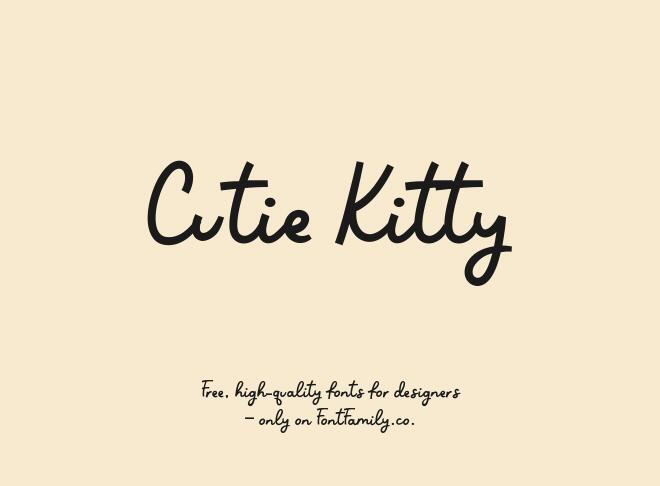
Cutie Kitty Font
The Cutie Kitty Font, designed by Sweet Type Foundry, is a playful yet elegant handwritten script font. Released in 2021, it encapsulates a perfect balance between fanciful comic style and graceful decorative design. The Cutie Kitty Font is characterized by its unique, playful letterforms, making it an ideal choice for children's book covers, greeting cards, and party invitations. Its bubbly and lively style can be compared to popular fonts like 'Comic Sans' but with a more refined and sophisticated touch. The font is free for personal use, and it adds a distinctive and charming flair to any design project, making it a must-have in a designer's toolkit. With Cutie Kitty Font, you can effortlessly transform any design into a fun and engaging piece of art.